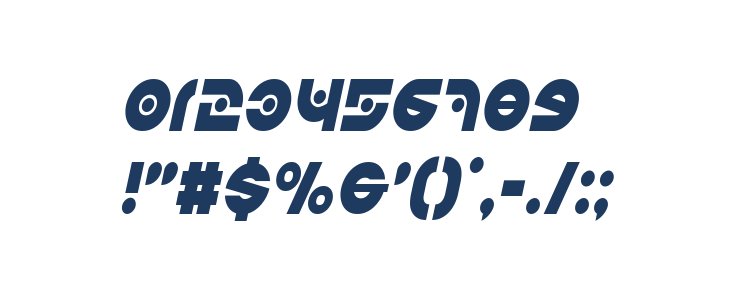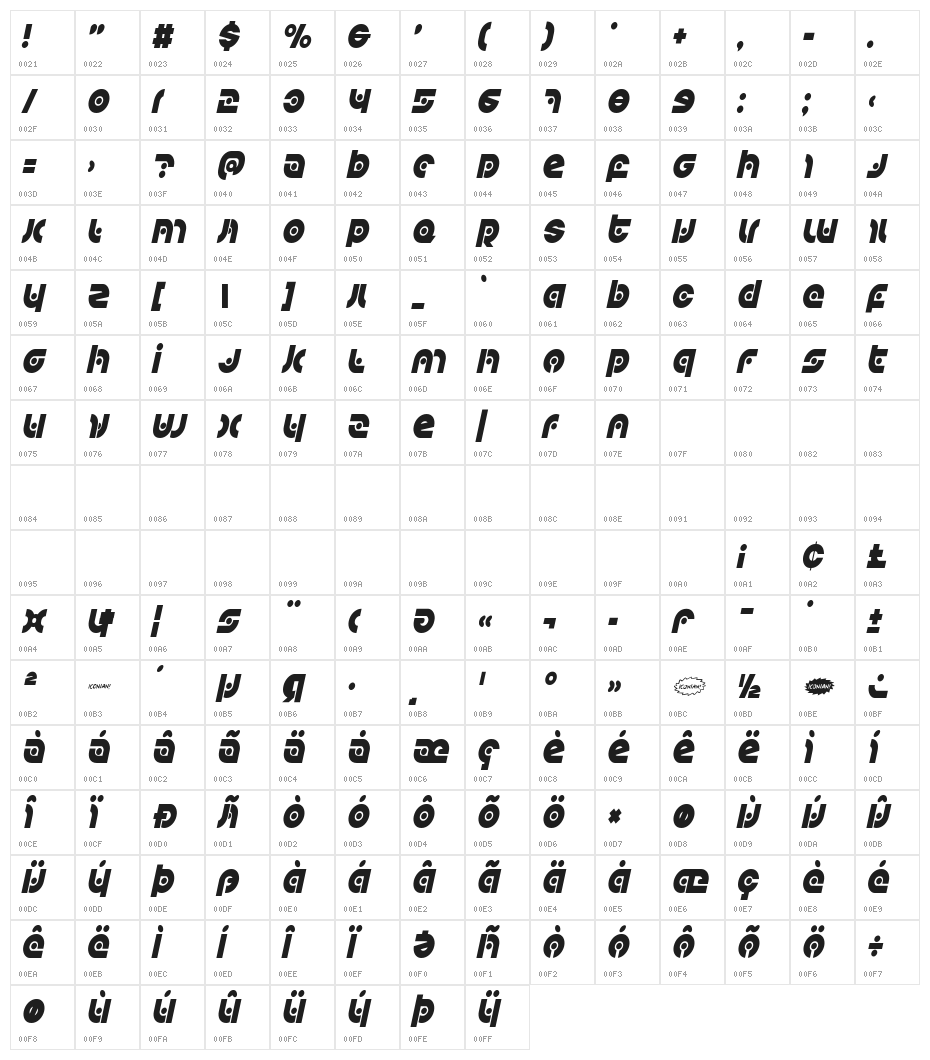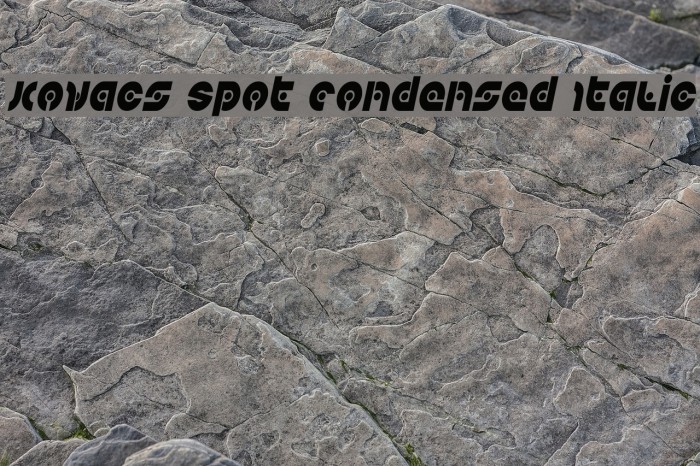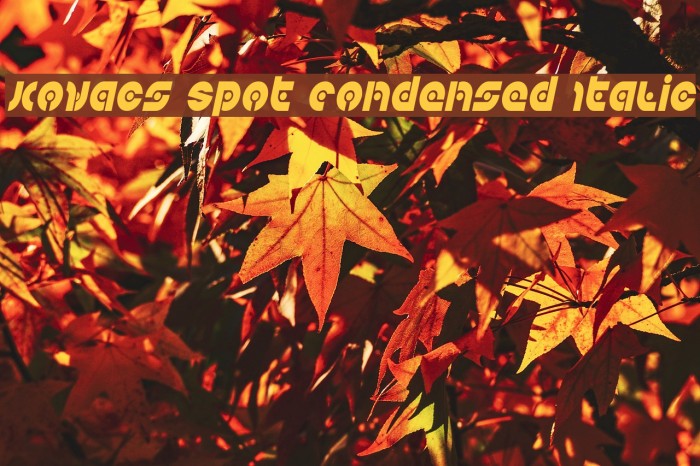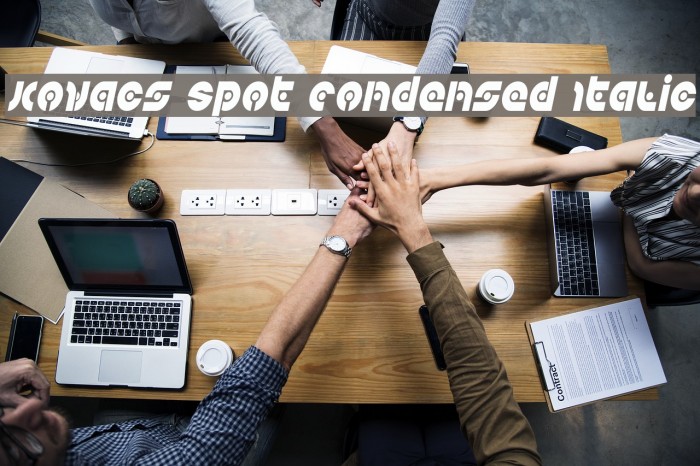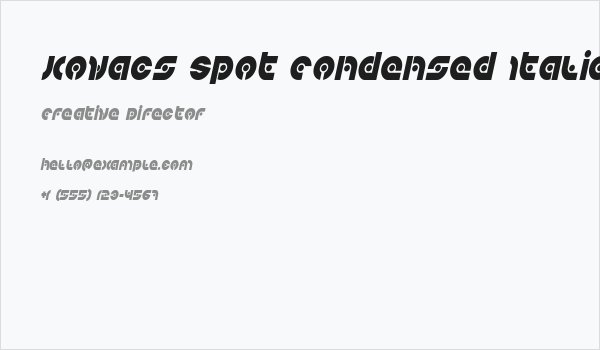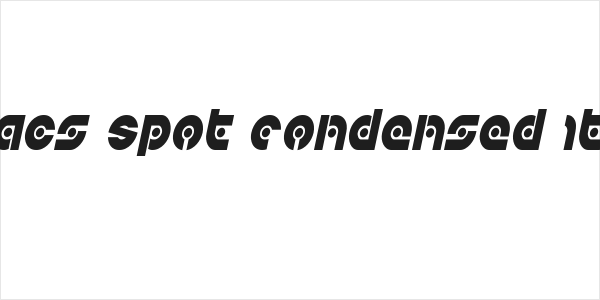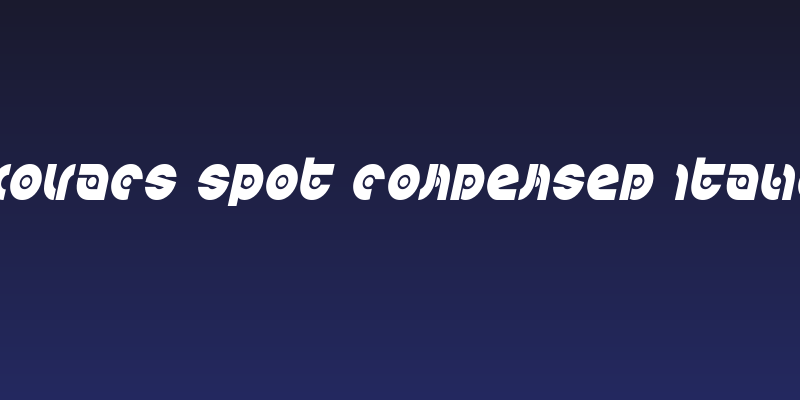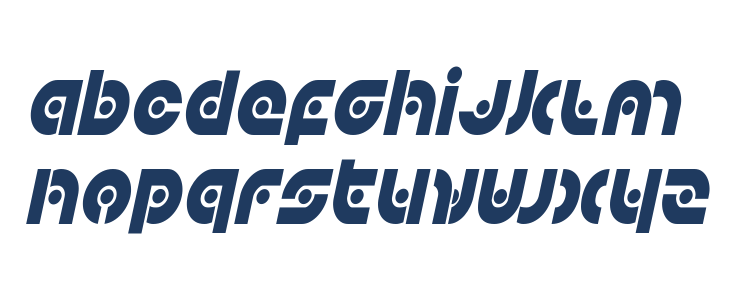
Kovacs Spot Condensed Italic Font
Kovacs Spot Condensed Italic Description
This font features a bold, geometric style with a condensed and italicized form. The characters are crafted with a futuristic aesthetic, characterized by sharp angles and smooth curves. The design incorporates a unique blend of thick and thin strokes, creating a dynamic visual rhythm. The uppercase and lowercase letters maintain a consistent style, with the lowercase mirroring the boldness of the uppercase. The numerals and special characters follow the same design principles, ensuring uniformity across all glyphs. This font's distinct appearance makes it stand out, offering a modern and edgy look.